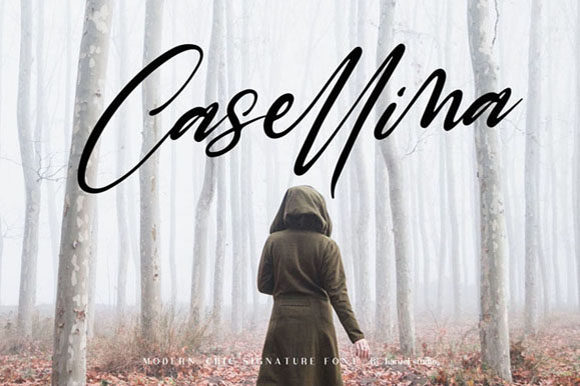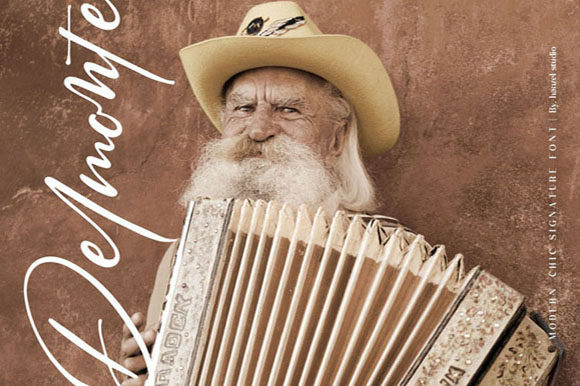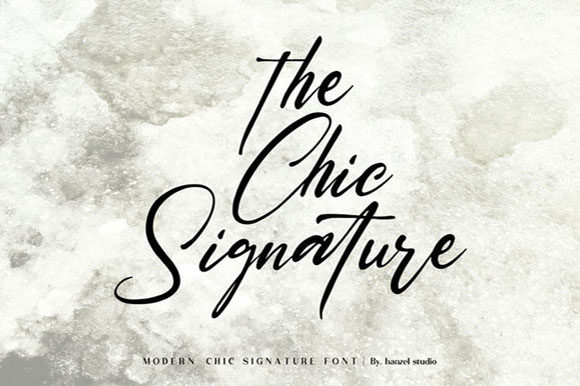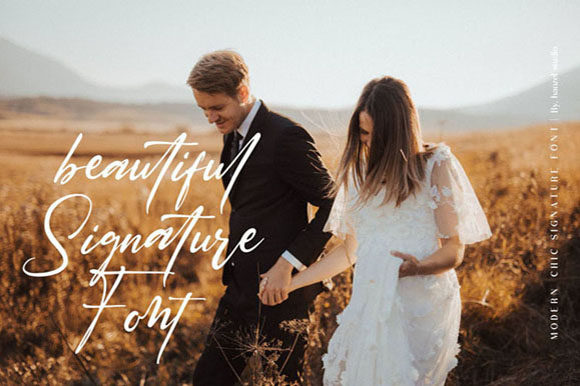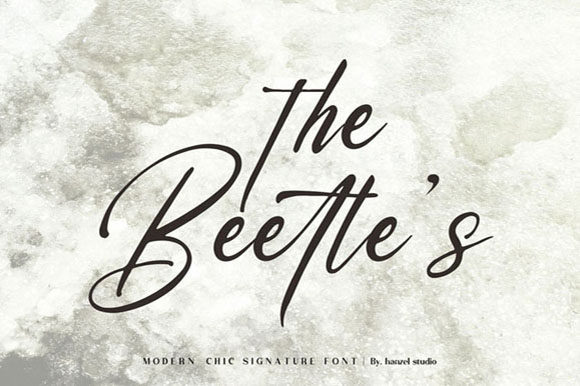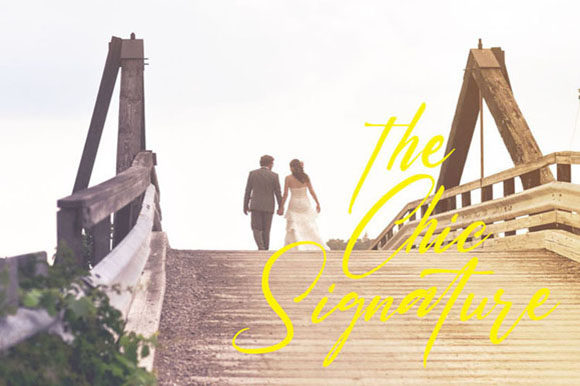
Introduction to Saltacrus Font Font
Fonts play a crucial role in design, and the Saltacrus Font font is a typeface that brings both character and versatility to any project. Whether you’re working on a branding project, a website, or a print design, the Saltacrus Font font offers a unique style that can elevate your work.
| π Font Name | Saltacrus Font |
| π€ Author | Hanzel Studio |
Saltacrus is a cute signature font with an awesome fell.
Itβs perfect for logos, signatures, wedding invitations and any crafting project that requires a personalized appearance .
Key Features of Saltacrus Font Font
Why Choose Saltacrus Font Font?
The Saltacrus Font font is more than just a typeface β it’s a design tool that helps you communicate your message with style and clarity. Its unique character set and versatile design make it suitable for a wide range of applications, from elegant invitations to bold headlines.
With its carefully crafted letterforms and balanced proportions, the Saltacrus Font font ensures readability and visual appeal across all mediums.
What makes Saltacrus Font font special?
The Saltacrus Font font stands out with its unique design, exceptional readability, and versatility across various design applications.